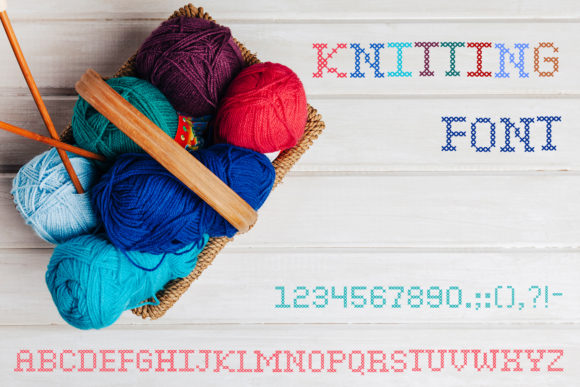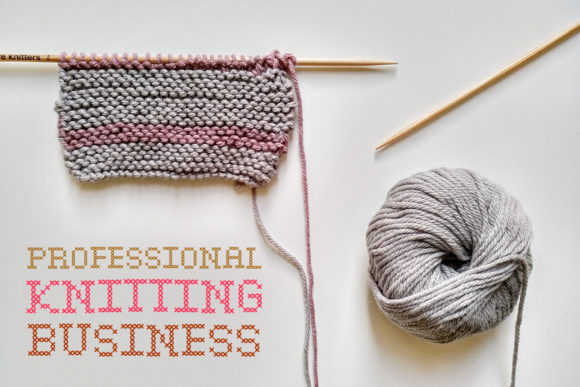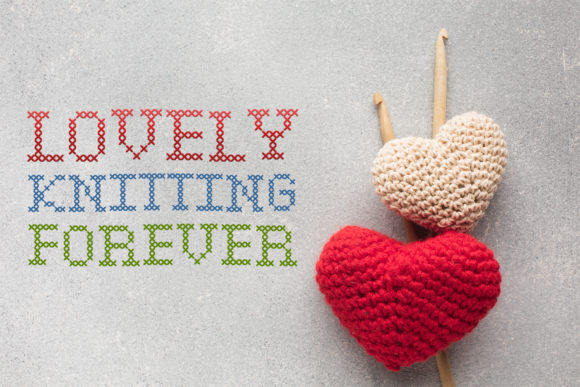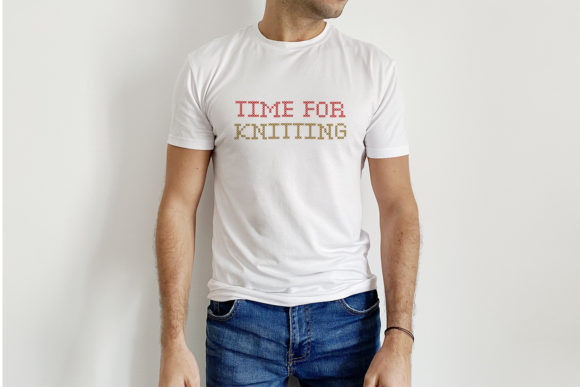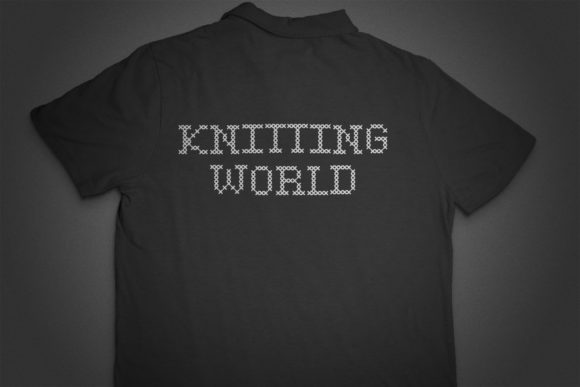
Knitting Font
About Knitting Font
Knitting embodies fun, quirkiness and authenticity. This enchanting handwritten font will turn any creative idea into a true standout.